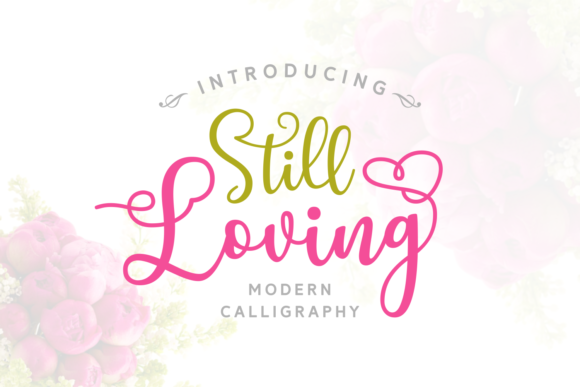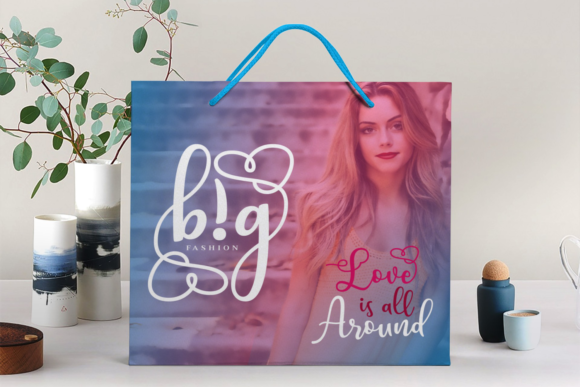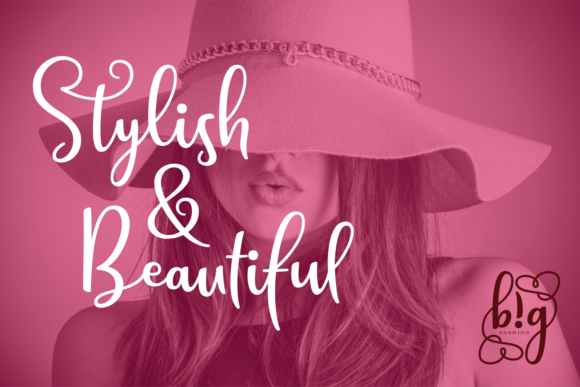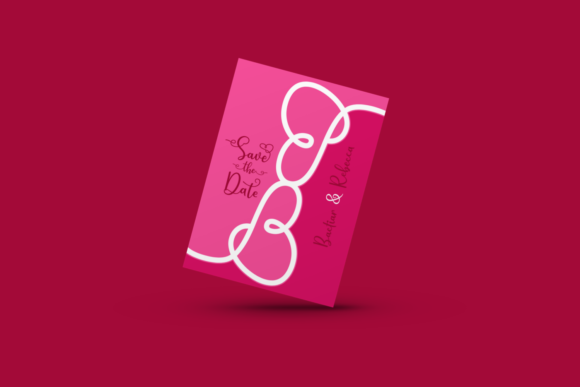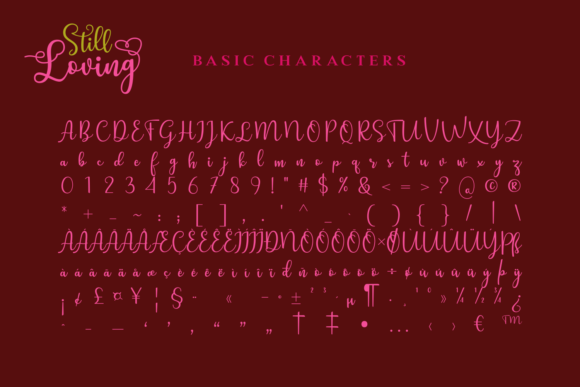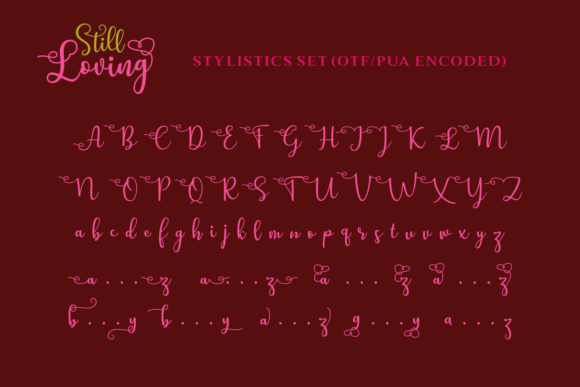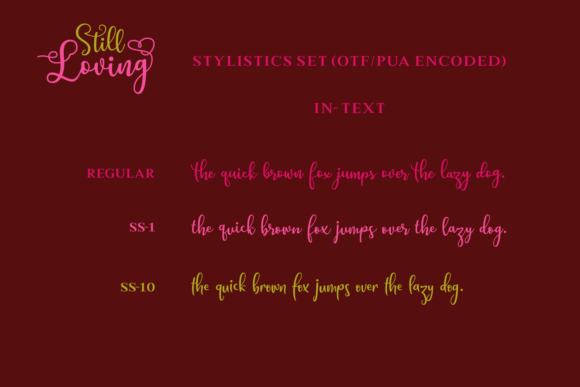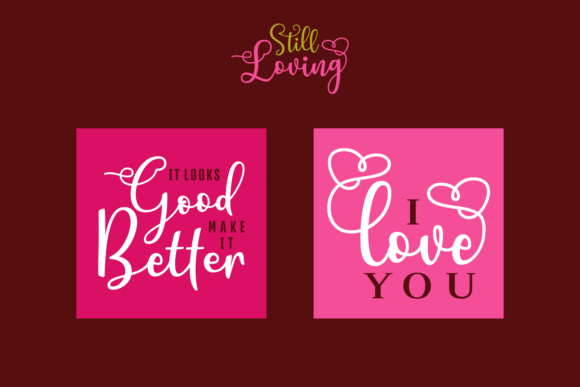
Still Loving Font
About Still Loving Font
Still Loving is a gorgeous, swirly font that will make all your projects supremely sweet and appealing! This is a great font that works in a number of industries and has a very ornate yet refined quality to it.